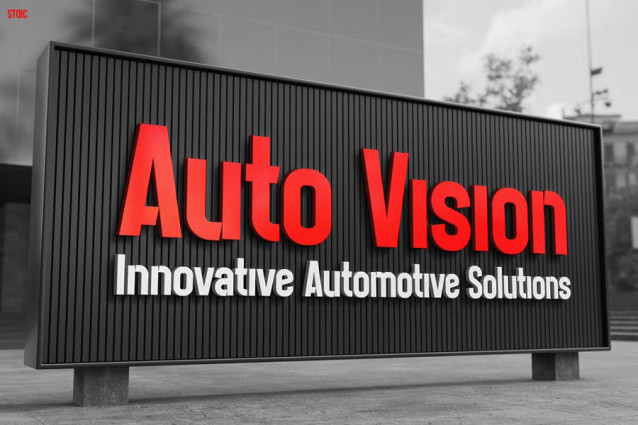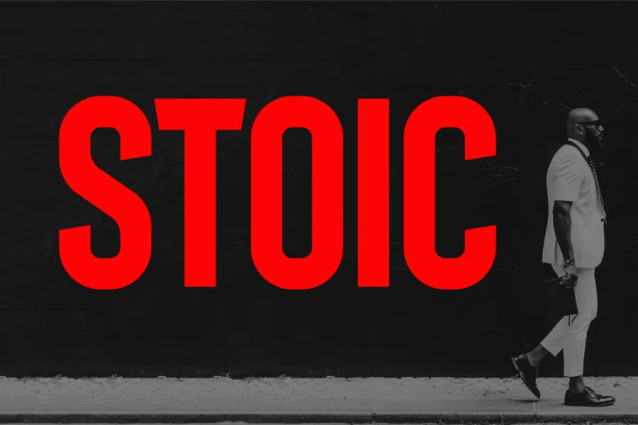
Stoic Font
Stoic Font is a perfect blend of strength, clarity, and forward-thinking design. This typeface stands out for its bold geometric structure and clean-cut lines, evoking a sense of modernism and confidence. Every letter is crafted to deliver visual impact while maintaining perfect balance and readability, making it ideal for professional branding, tech startups, and editorial layouts. The combination of condensed proportions and sleek edges makes STOIC a remarkable choice for those who want their typography to look powerful yet timeless.
The beauty of Futuristic Font STOIC lies in its versatility. It works seamlessly in both print and digital media, ensuring your designs stay sharp and captivating in any format. The uppercase dominance and proportional spacing give it a striking presence, while subtle detailing keeps it elegant and contemporary. Whether used on posters, websites, or product packaging, this font commands attention with sophistication and futuristic energy.
Perfect For Designers Who Demand Impact
Futuristic Font STOIC is an excellent fit for graphic designers, creative agencies, and entrepreneurs looking to convey innovation and authority. It’s especially suitable for tech companies, automotive branding, architecture firms, industrial design projects, or any business that values clean aesthetics and modern expression.
You’ll love how this font transforms ordinary text into a visual statement—ideal for logos, editorial headlines, business presentations, and minimalist advertising. Its adaptability makes it a reliable choice for both bold, high-impact titles and sleek professional identities. STOIC communicates purpose and style with every character, helping your designs stand out in a competitive creative market.
Take Your Design Into the Future
With Futuristic Font STOIC, you’re not just choosing a font—you’re investing in a visual language of confidence and innovation. Let your designs speak with power, precision, and clarity. Elevate your creative projects with a typeface that embodies the future of design—strong, modern, and unshakably bold.